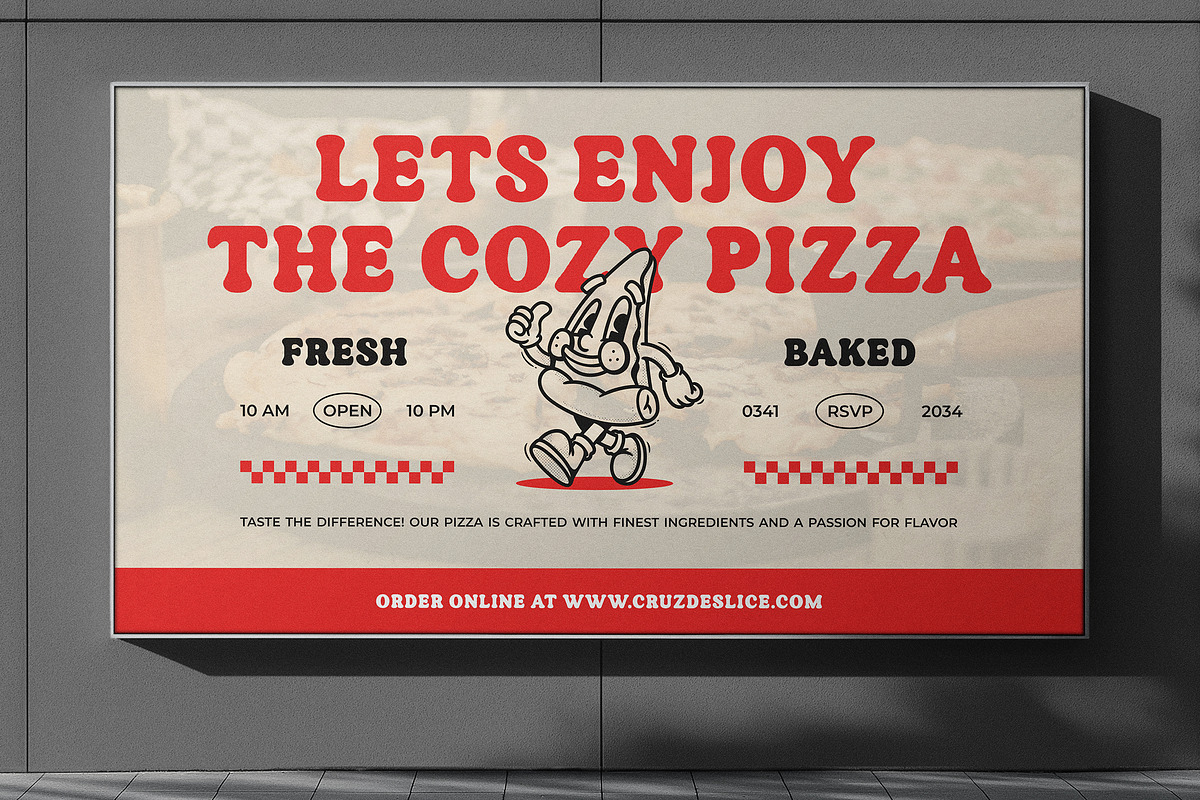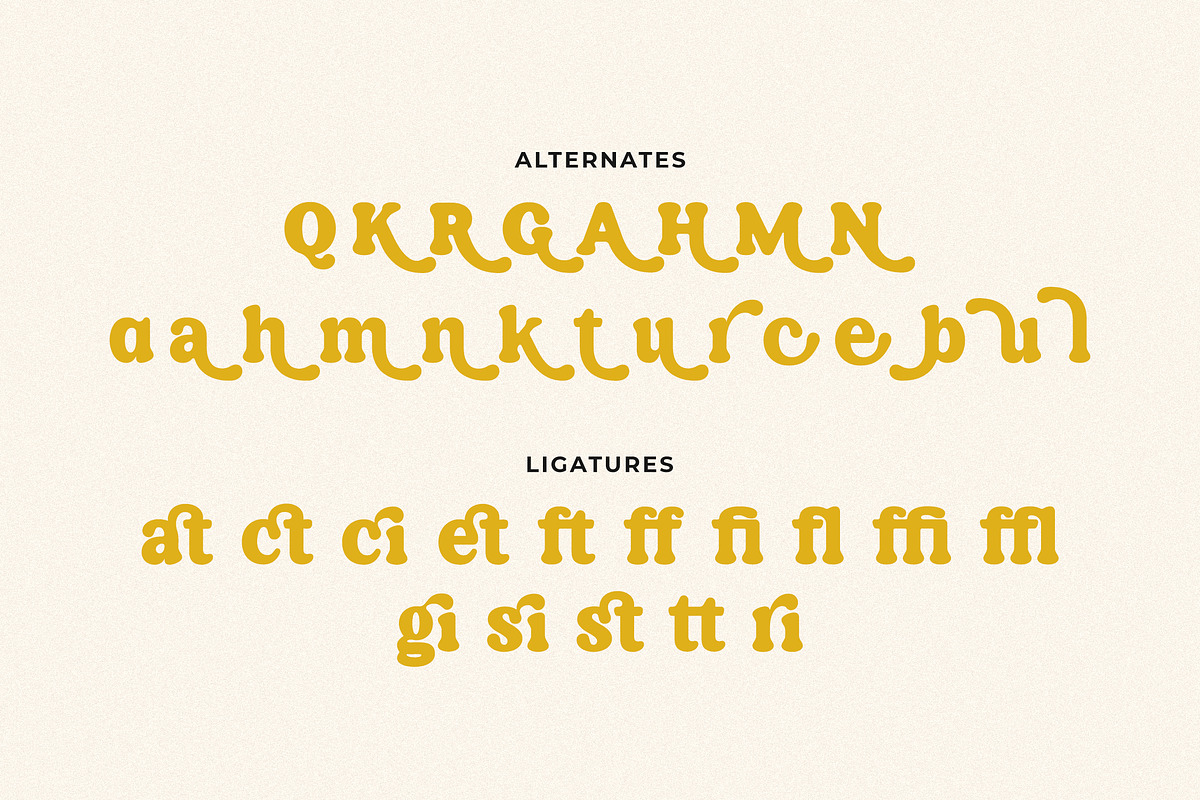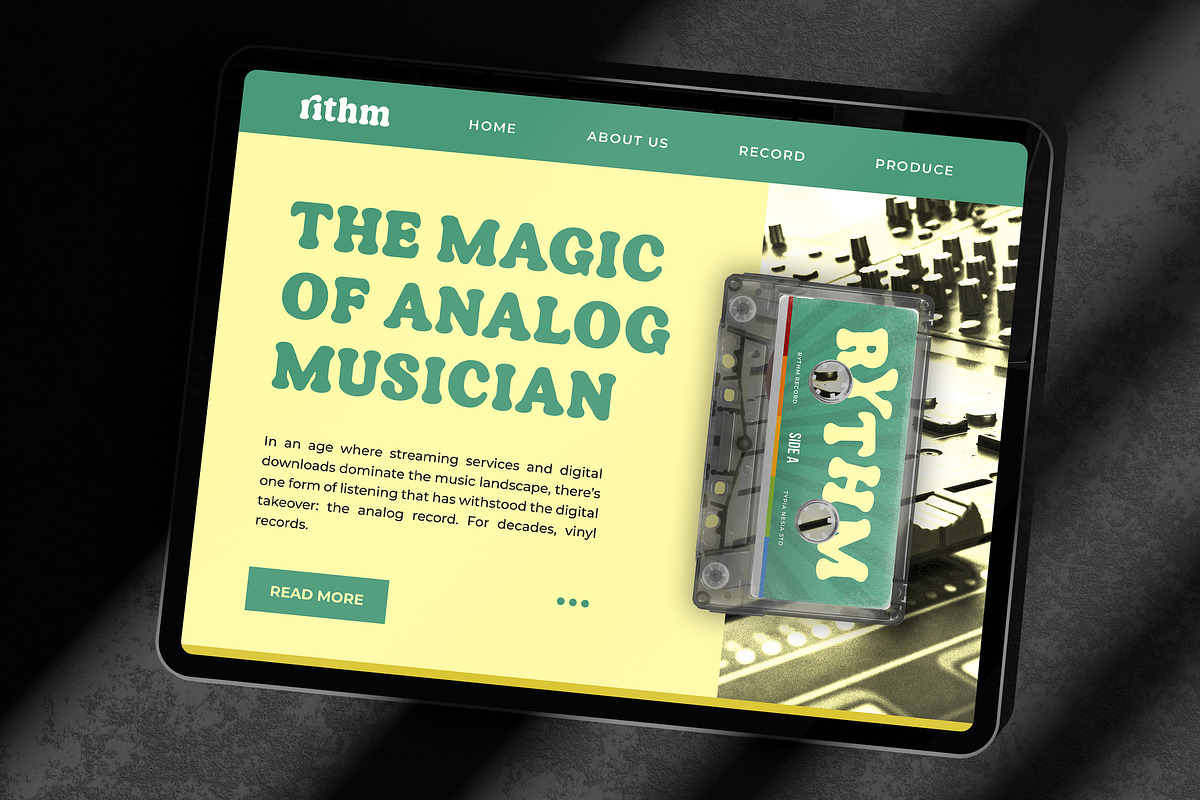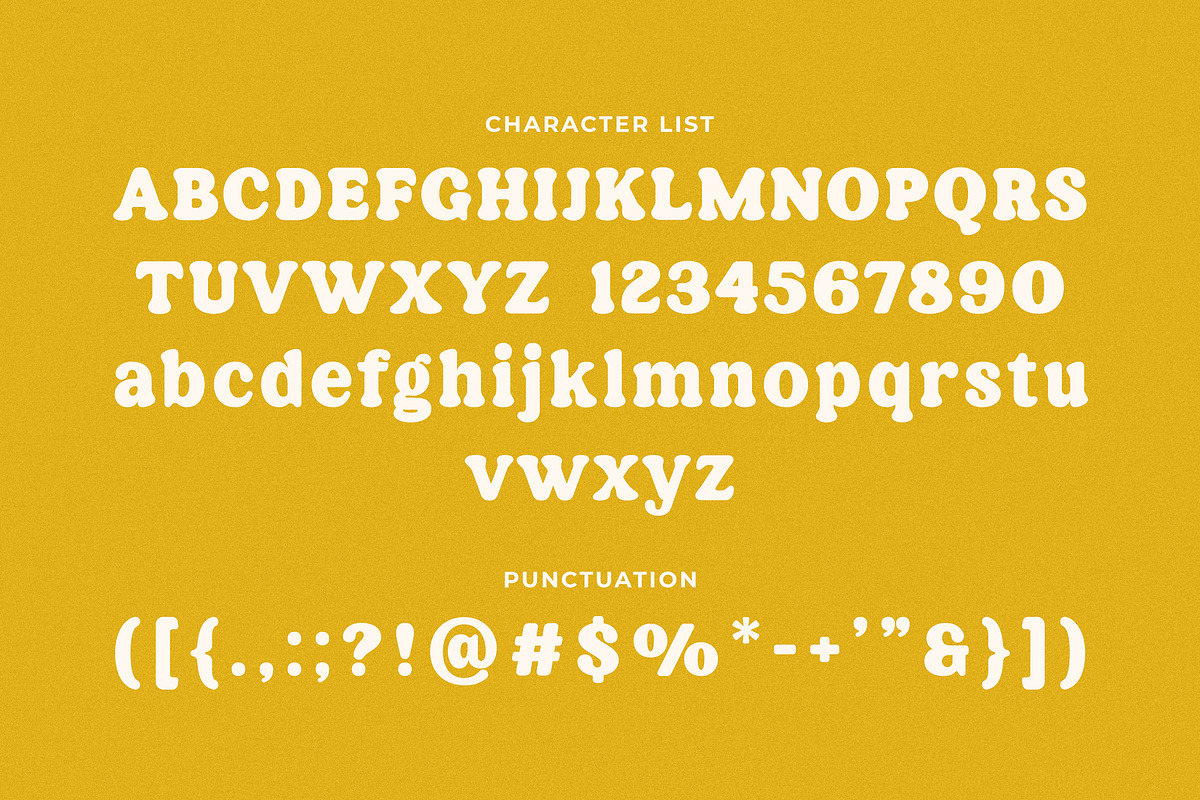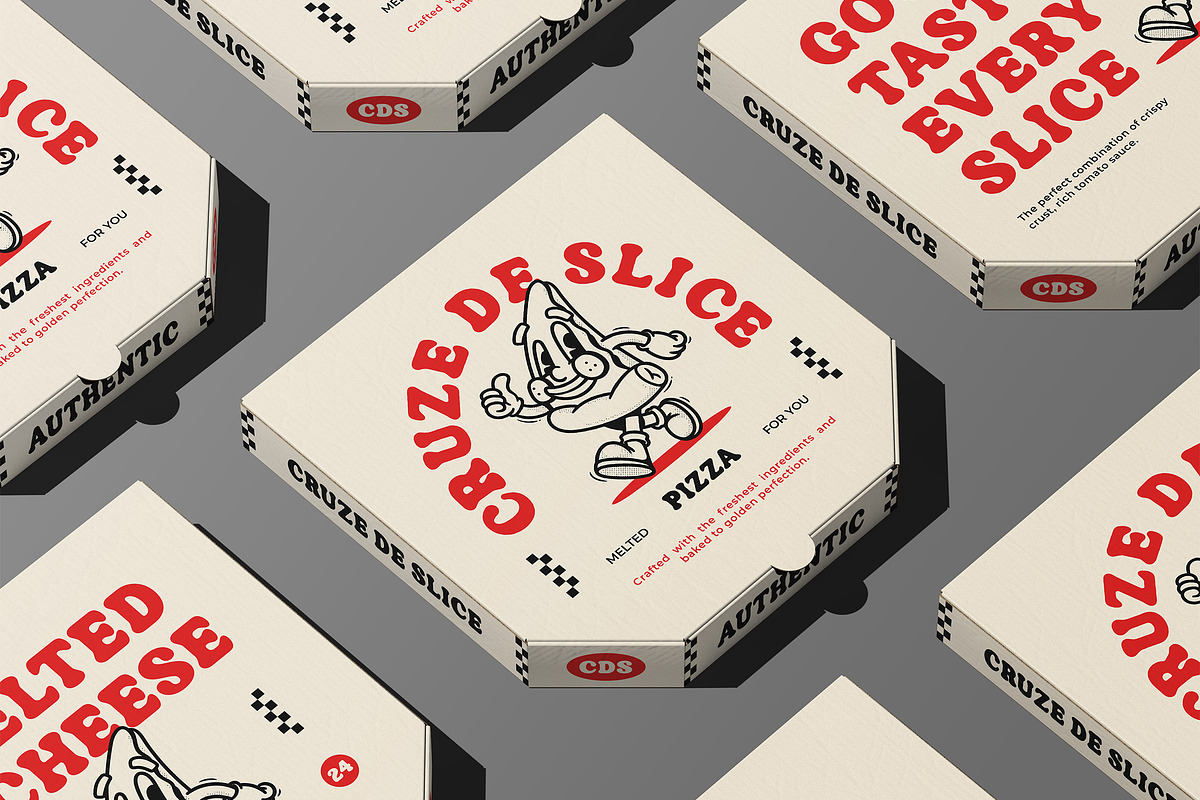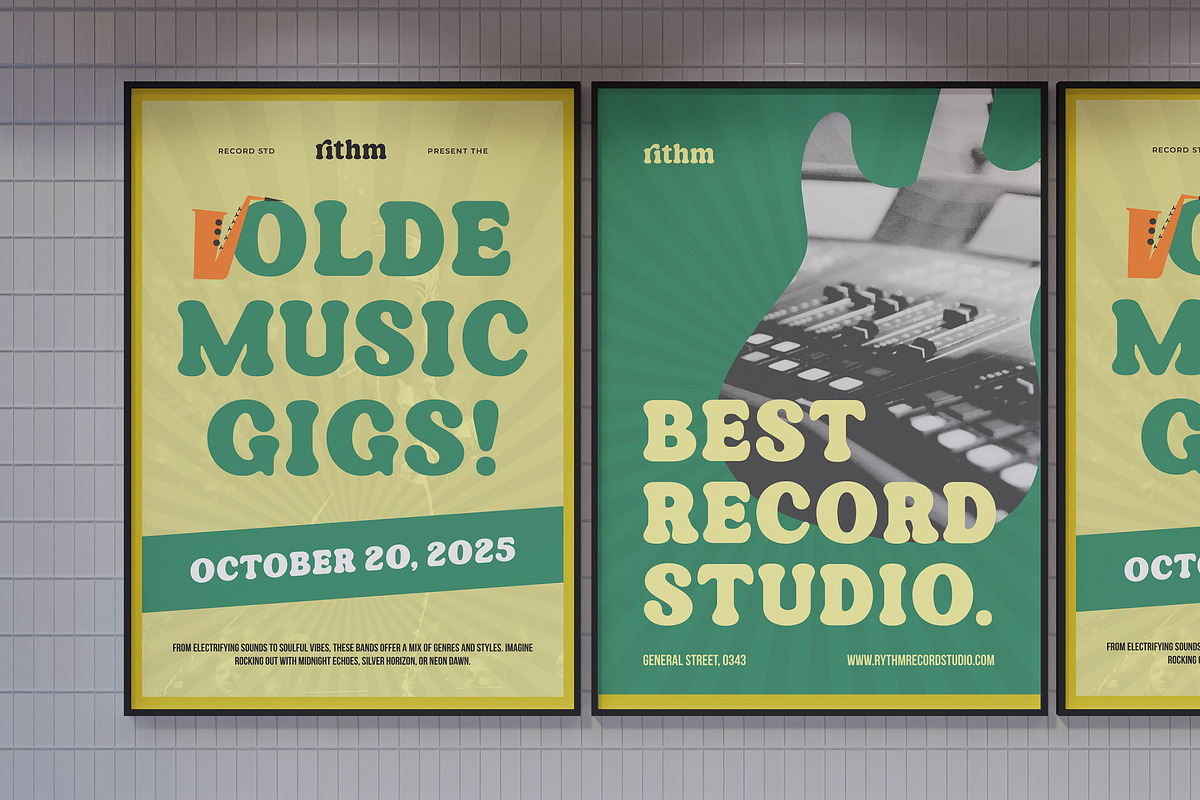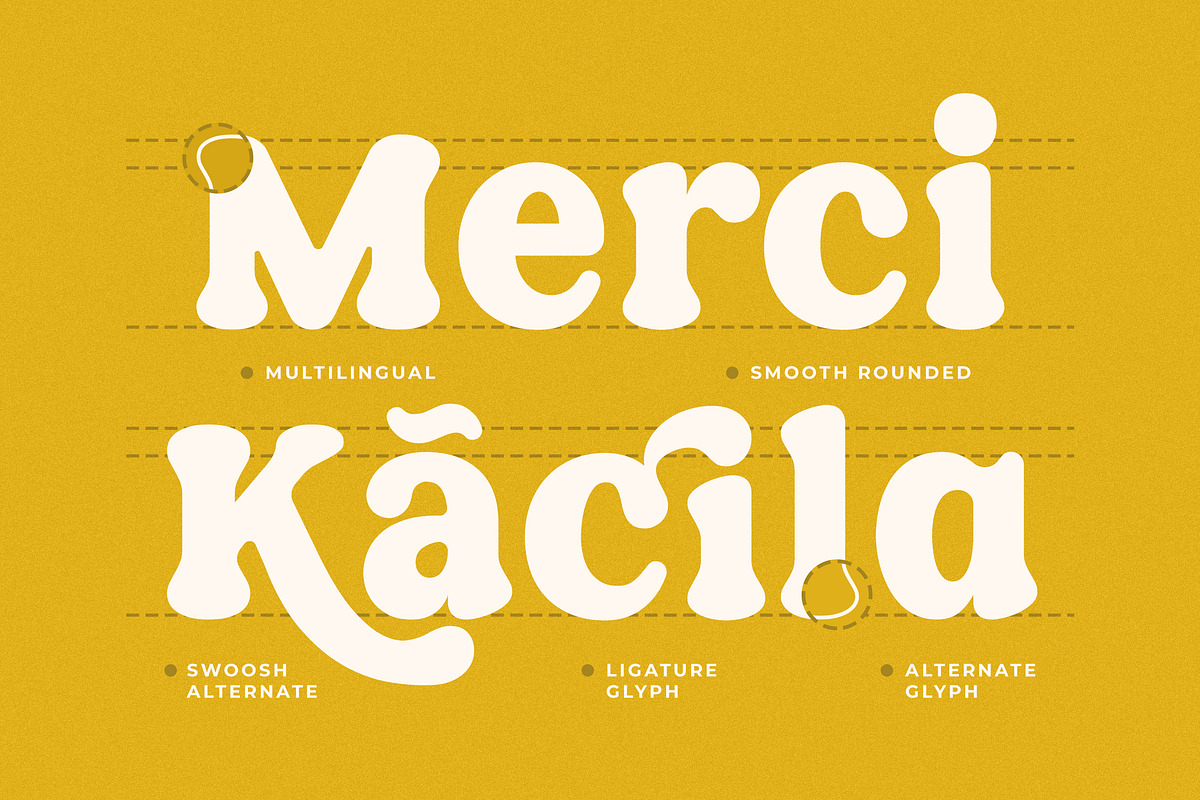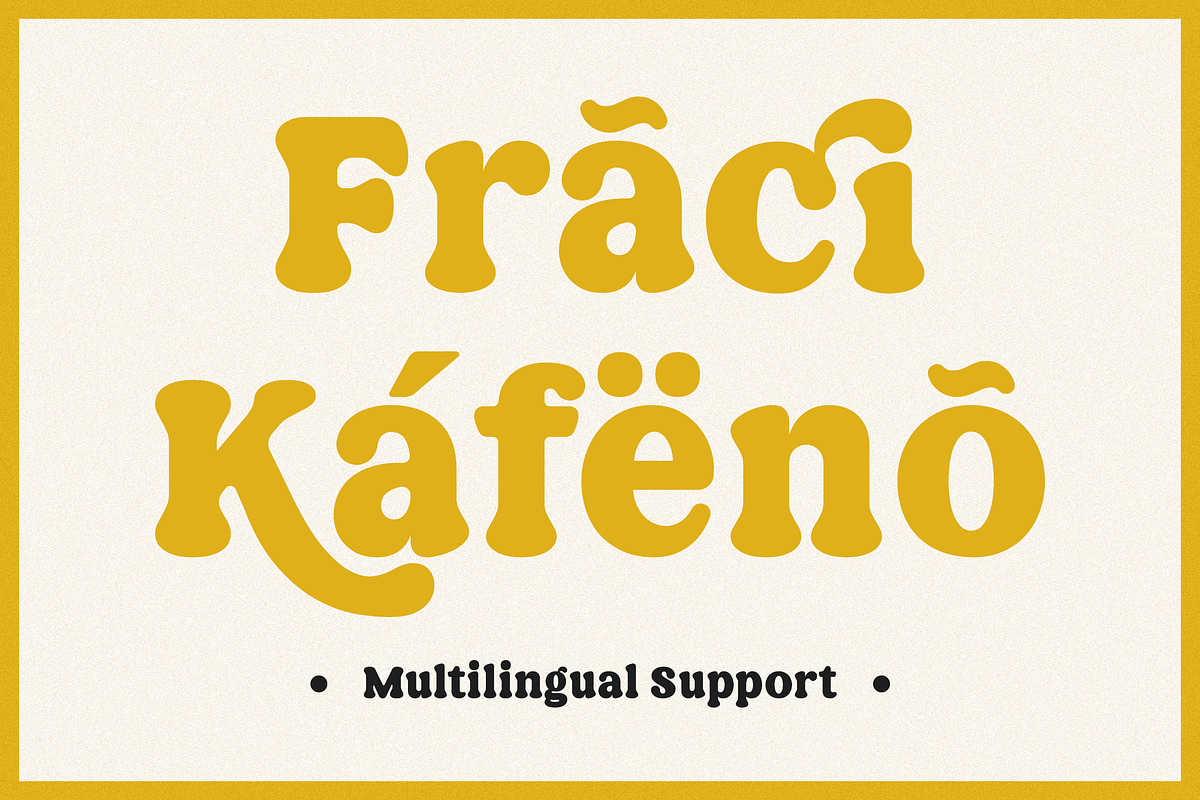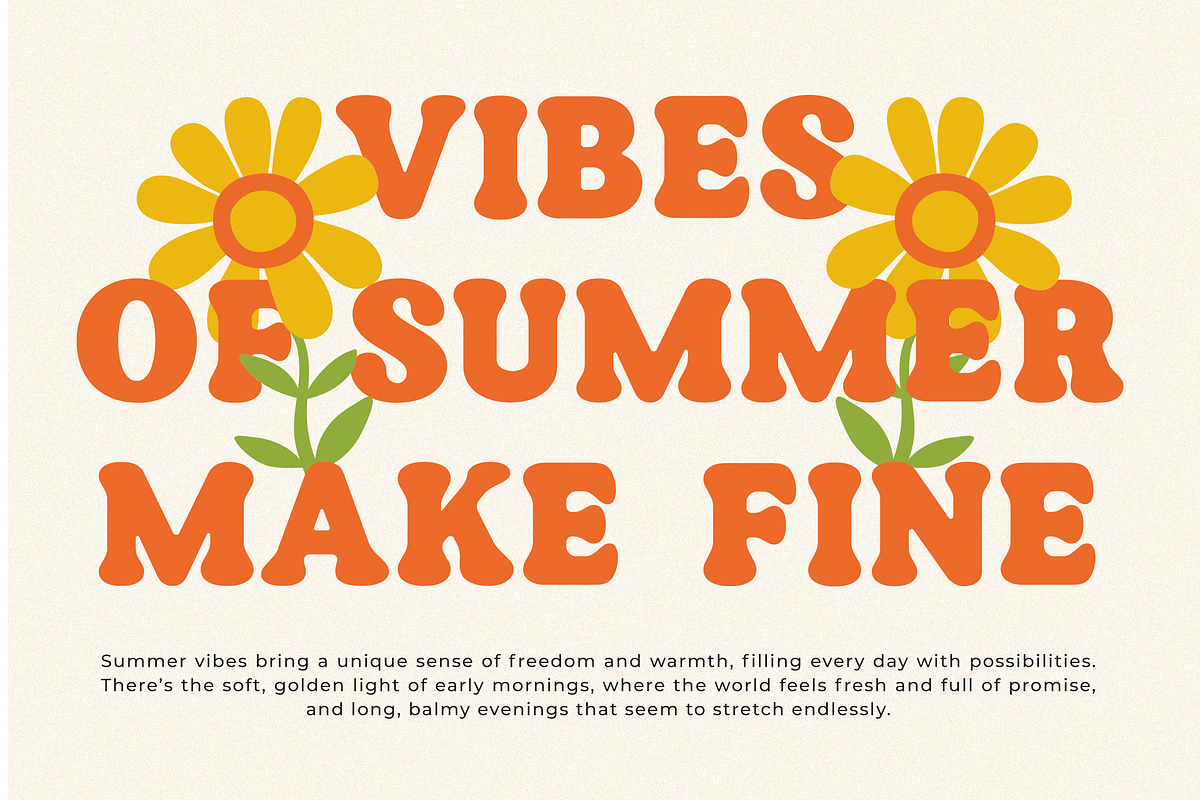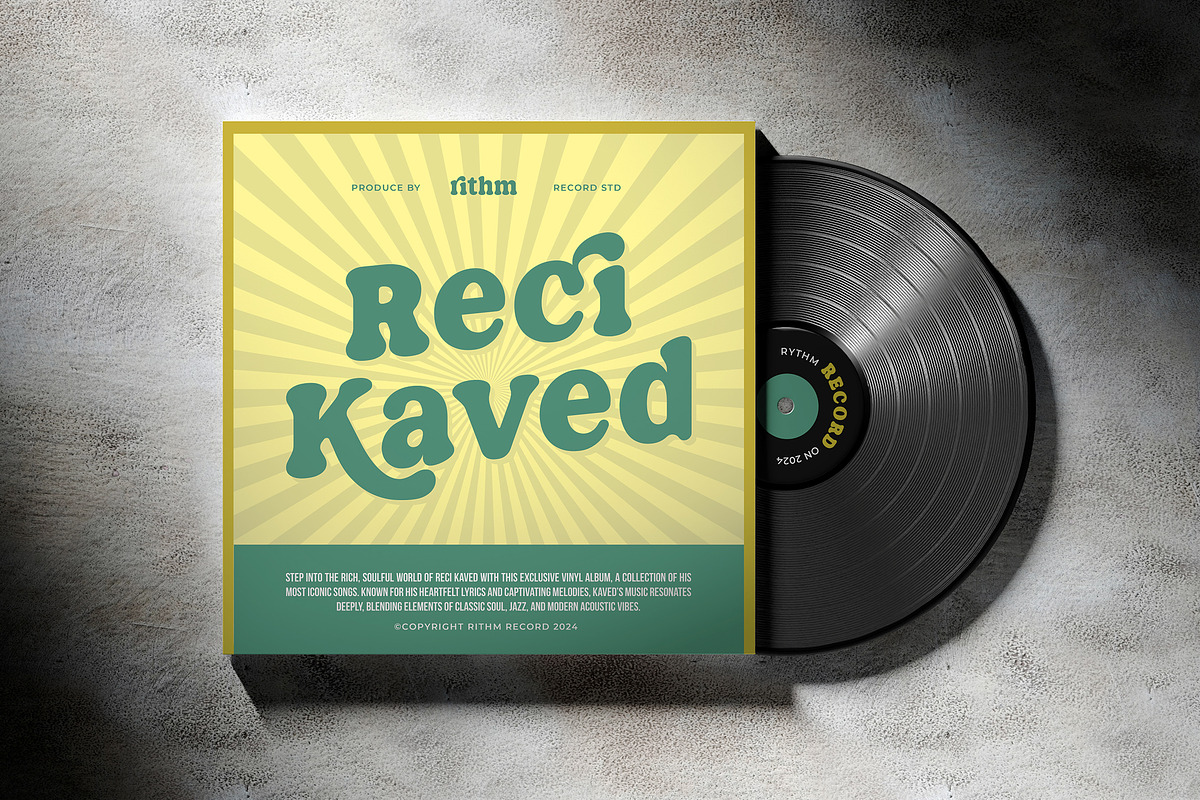
Krimside - Retro Groovy Serif
Krimside - Retro Playful Groovy Serif Font - Modern Vintage Funky Game Display Font
Krimside is a Groovy Serif Font that combines retro charm with modern design. Its playful curves and bold presence bring a fun and unique personality to your projects, Such as branding, poster design, album covers, retro-inspired projects, social media graphics, packaging, invitations, kid stationary, advertising, boldgame design and any design needing a funky, standout style. Comes with uppercase, lowercase, punctuation, numerals, ligatures, alternates, and multilingual support. This comprehensive character set ensures versatility and ease of use across various languages and design needs. Crafted by professional designers, Krimside offers a blend of vintage aesthetics and modern functionality. Its groovy serifs make it a perfect choice for creating eye-catching and memorable designs.